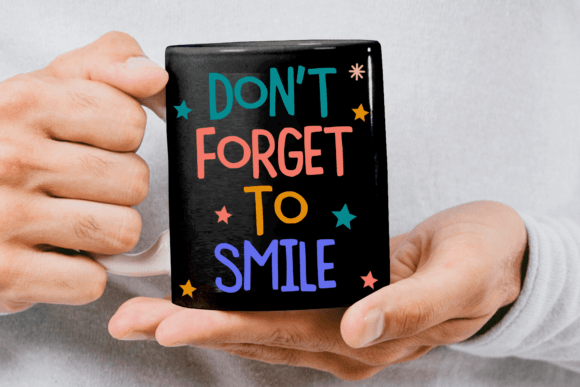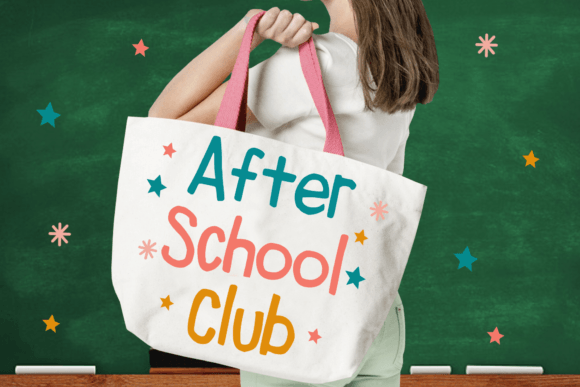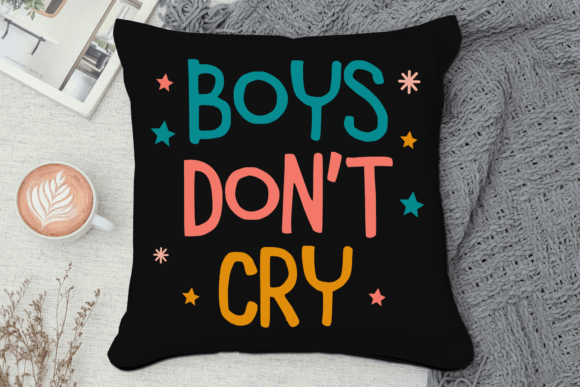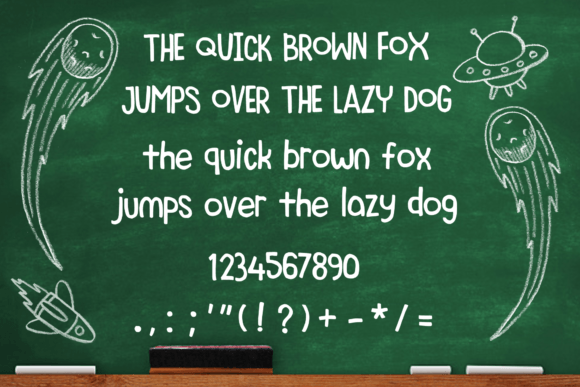
The Ultimate Guide to Green Board Font: A Playful Display Font for Creative Projects
I’ll never forget the time I was working on a design project for a client’s restaurant menu. I had all the graphics and layout sorted out, but I was stuck on finding the perfect font. That’s when I stumbled upon Green Board Font, and it completely transformed my design. If you’re a designer, crafter, or creative hobbyist looking for a versatile and playful display font, you’re in the right place!
An Honest Review of Green Board Font
So, what makes Green Board Font so special? Let’s dive into the good stuff and a few quirks I’ve discovered.
What I Love About Green Board Font
- ✨ Playful and Cool Style: Green Board Font has an incredibly cool and playful vibe that adds a casual touch to any design.
- ✅ Versatility: It works great for a wide range of projects, from t-shirts and book designs to restaurant menus, blog writing, greeting cards, and stickers.
- ✨ Attention-Grabbing: This font screams for attention, making it perfect for designs that need to stand out.
While Green Board Font is amazing, there are a few things to keep in mind:
- ⚠️ Legibility at Small Sizes: Like many display fonts, Green Board can get a bit tricky to read at very small sizes. Make sure to test it out at different sizes to ensure it’s legible for your project.
- 🤔 Overuse: Because it’s so fun and playful, it’s easy to overuse Green Board Font. Balance it with other fonts or design elements to keep your design fresh.
The Backstory of Green Board Font
Green Board Font was inspired by the classic look of chalkboard signs. Its creator wanted to capture the playful, casual feel of handwritten chalkboard lettering and make it accessible for digital designs. The result is a font that’s both fun and versatile.
| Font Name | Green Board Font |
| Author | MVMET |
Q: What type of projects is Green Board Font best suited for?
A: Green Board Font is perfect for projects that need a playful and casual touch, such as t-shirts, book designs, restaurant menus, blog writing, greeting cards, and stickers.
Q: Is Green Board Font easy to read?
A: Green Board Font is designed to be attention-grabbing and playful. While it’s easy to read at larger sizes, it may get a bit tricky at very small sizes.